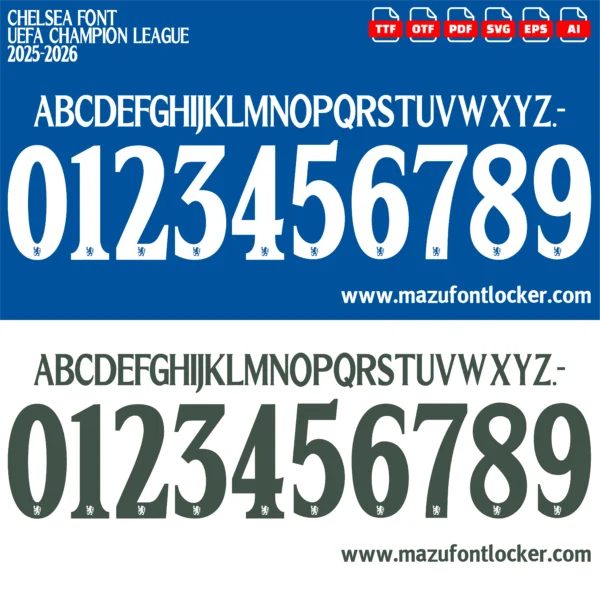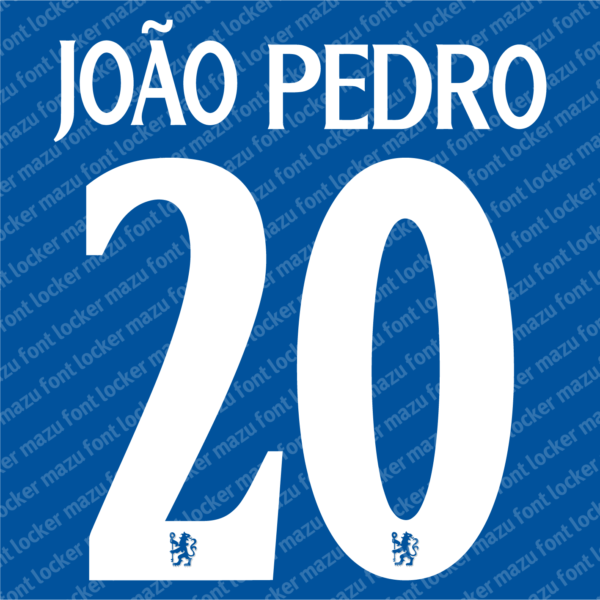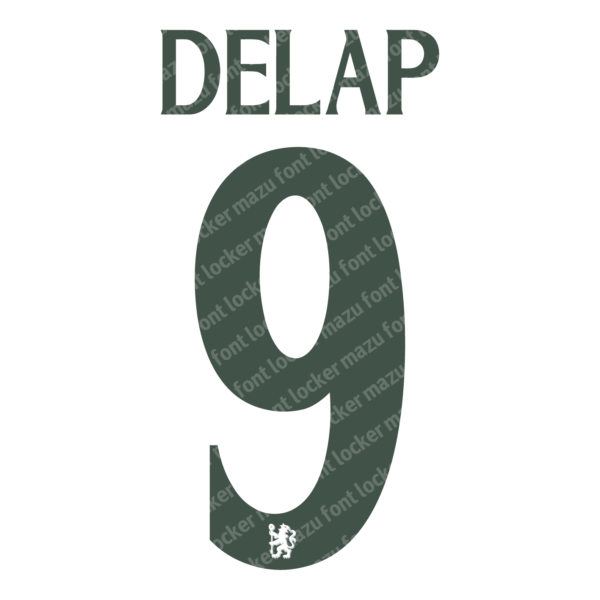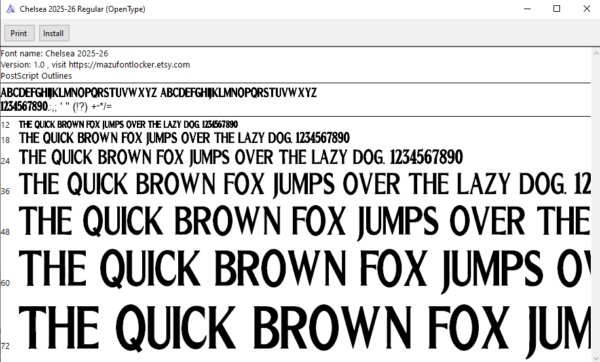
Chelsea 2025-2026 Font Vector – Stunning Blues Masterpiece
This font captures the commanding, razor-sharp, thunderous, and precision-crafted lettering that perfectly embodies Chelsea’s proud club identity, rich English football heritage, iconic blue tradition, and relentless winning mentality — delivering unmatched authenticity, premium quality, explosive energy, and elite Premier League & European football presence for professional jersey mockups, dynamic football graphics, premium sports branding, passionate fan creations, and high-end design projects.
Chelsea 2025-2026 Font Vector – Iconic Blues Heritage Typeface
The Chelsea 2025-2026 Font Vector is a premium typeface that accurately recreates the official match lettering worn by Chelsea FC during the 2025-2026 season. This high-quality vector font kit captures the bold, clean, and instantly recognizable typography that perfectly complements the club’s iconic blue identity.
Designed for professional designers, football enthusiasts, and passionate Chelsea supporters, the Chelsea 2025-2026 Font Vector delivers exceptional authenticity for creating realistic jersey mockups, football merchandise, social media graphics, match posters, and custom fan artwork. Every character has been carefully recreated to match the powerful and precise visual style of one of England’s most successful and historic football clubs.
Why Choose Chelsea 2025-2026 Font Vector
This font stands out thanks to its precise vector construction and authentic club-inspired styling. Every letter and numeral has been meticulously recreated to match the official shirt lettering used throughout the 2025-2026 Premier League and European football campaigns. Whether you’re producing professional kit templates or creating eye-catching football content, the Chelsea 2025-2026 Font Vector delivers a genuine match-ready appearance inspired by the proud identity of the London Blues.
The lettering featured in the Chelsea 2025-2026 Font Vector combines clean geometric lines with powerful modern proportions. The result is a premium and highly readable typeface that reflects Chelsea’s winning mentality, attacking football, precision, and proud Blues heritage.
- Complete uppercase A–Z alphabet and numbers 0–9 in authentic Chelsea 2025-2026 style
- Create authentic Chelsea 2025-2026 home and away jersey mockups
- Produce custom Chelsea-inspired merchandise and fan projects
- Recreate the distinctive look of Chelsea player names and squad numbers for creative projects
Chelsea 2025-2026 Season
The 2025-2026 season marks another exciting chapter for Chelsea FC as the club continues its pursuit of domestic and European success. Competing in the Premier League and aiming for another memorable European campaign, Chelsea will once again showcase its iconic blue colours on the biggest stages of football.
Known for its rich history, passionate supporters, and commitment to attacking football, Chelsea remains one of England’s most celebrated clubs. The Chelsea 2025-2026 Font Vector is designed to capture the bold visual character associated with the club’s modern football identity.